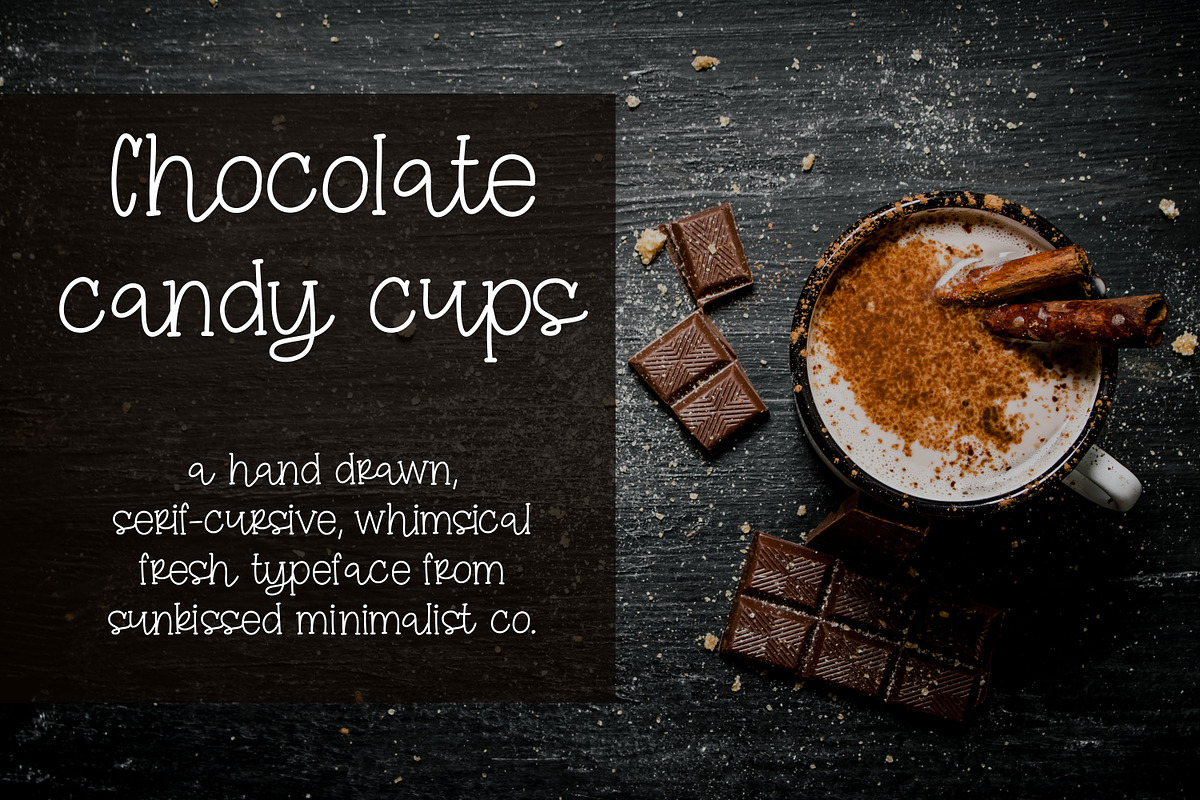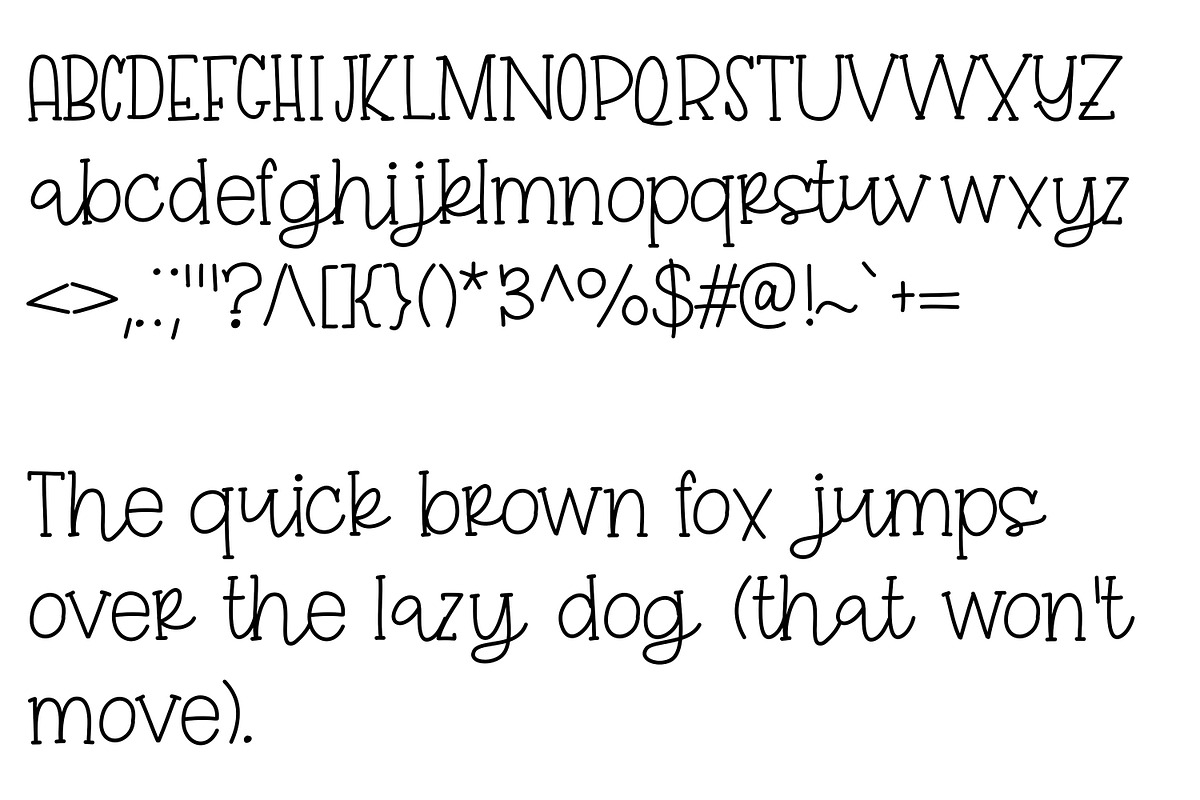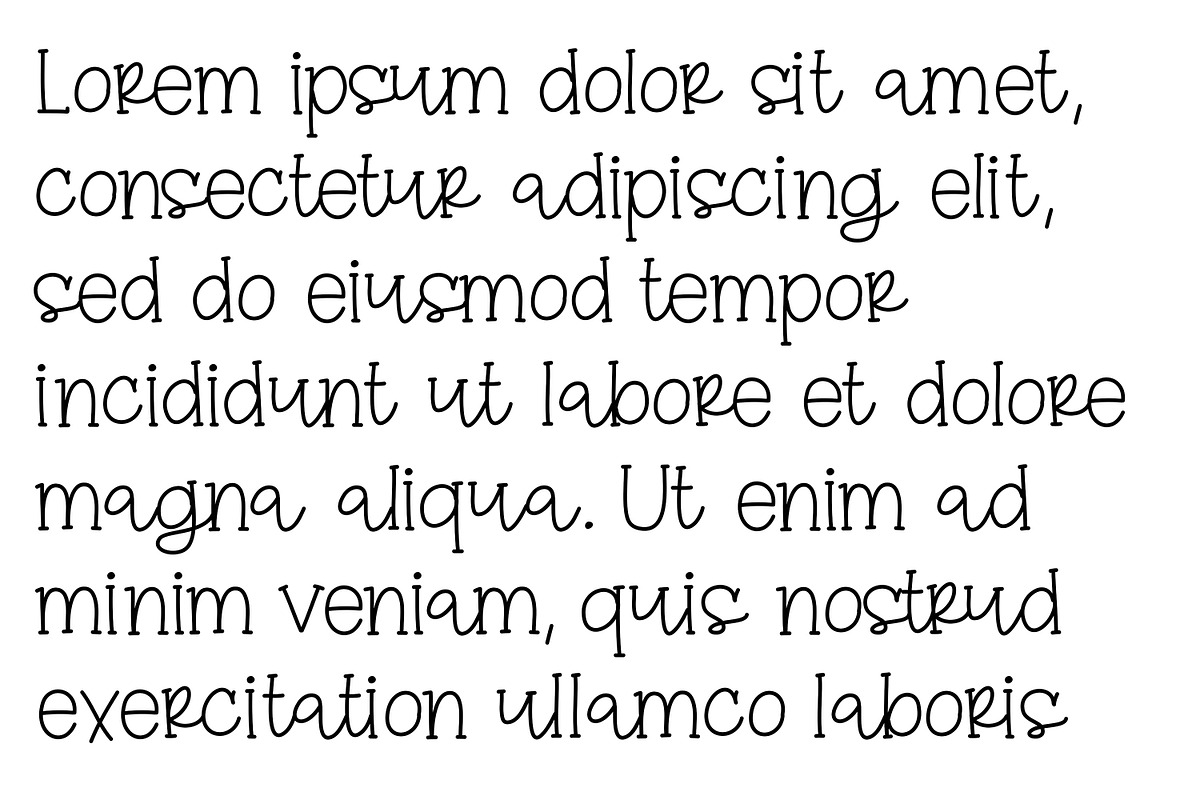
Chocolate Candy Cups
Chocolate Candy Cups is a hand-drawn font that incorporates the charming qualities of a serif print with the ease of a cursive typeface. It is whimsical, fresh, and perfect for a multitude of different things.